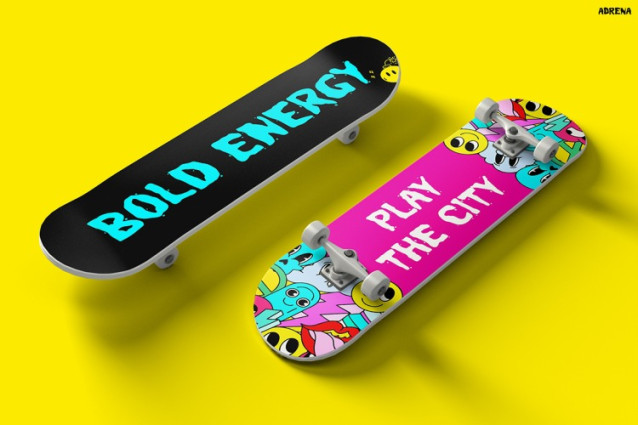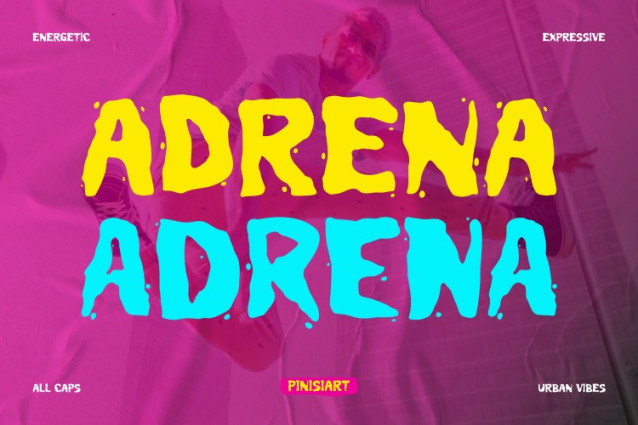
Adrena Display Font
Adrena Display Font is a bold and playful typeface that instantly sparks energy in any design. What makes this font unique is its raw handwritten aesthetic, which combines expressive strokes with urban street-style influence. As a result, every word looks alive, fresh, and full of personality. Unlike standard fonts, ADRENA embraces imperfection, and therefore it feels authentic, dynamic, and stylish. Whether you need something fun, modern, or eye-catching, this font is designed to turn simple text into a powerful statement.
Why Handwriting Font ADRENA is Special
The beauty of Handwriting Font ADRENA lies in its balance between spontaneity and functionality. Each letter feels hand-drawn, yet it maintains excellent readability, making it perfect for both digital and print media. In addition, the font includes uppercase, lowercase, numbers, and punctuation, so it works seamlessly across different design needs. Moreover, its quirky strokes and bold presence make it ideal for branding projects that require high visual impact.
Because of its versatile style, ADRENA adapts well to different creative purposes. For example, you can use it on posters, streetwear branding, event flyers, product packaging, or even social media graphics. Instead of blending in, your message will stand out with energy, personality, and confidence.